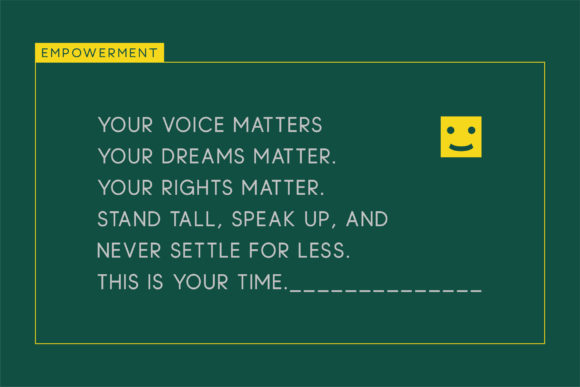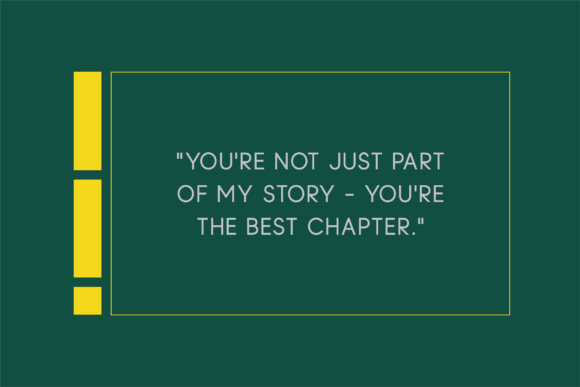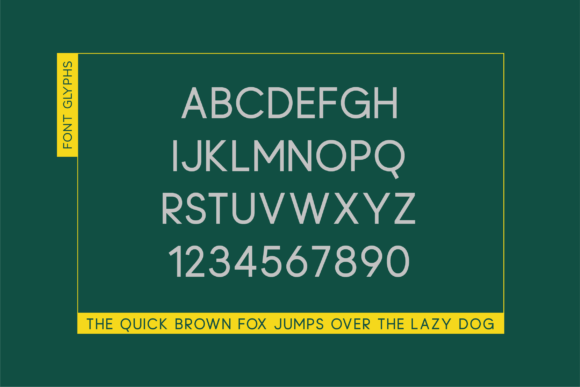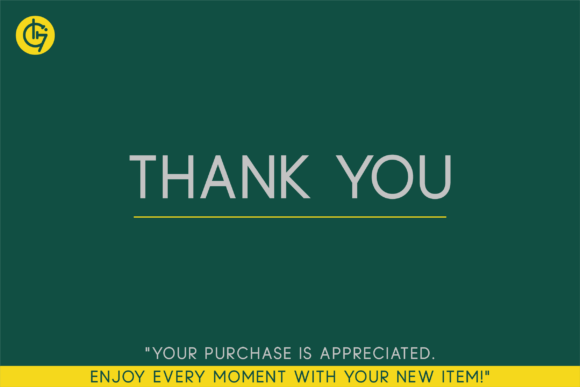
Introduction to Northwelth Font
Remember the moment when you finally nailed that creative project, and everything fell into place? The colors popped, the typography was on point, and the message resonated with your audience. It’s those moments that make all the hard work worth it. For designers, having the right tools and resources can make all the difference. That’s where Northwelth Font comes in – a modern sans serif typeface designed to elevate your design game.
With its clean lines, minimalist aesthetic, and all-caps design, Northwelth Font exudes strength and authority. It’s the perfect addition to your design arsenal, ideal for branding, logos, packaging, and digital design. Whether you’re working on a high-end project or a small-scale creative endeavor, Northwelth Font is sure to make a statement. And the best part? It’s available for free download, with a transparent background, making it a valuable resource for designers of all levels.
So, what sets Northwelth Font apart from the rest? Its modern, minimalist style, combined with a focus on readability, makes it an excellent choice for designers seeking a high-quality design resource. With its versatility and confidence-inspiring look, Northwelth Font is sure to become a go-to font for your next creative project.
Key Features of Northwelth Font
- High-quality design resource suitable for various creative projects, including digital art and graphic design.
- Features a transparent background, allowing for seamless integration into complex design compositions.
- Designed to be highly versatile, with a unique blend of modern and vintage elements that can be used in a wide range of applications.
- Resolution: Optimized for high-resolution displays, ensuring crisp and clear text rendering.
- Perfect for designers looking for a distinctive and eye-catching font to elevate their creative projects.
Honest Review: Northwelth Font
I recently stumbled upon the Northwelth Font, and I’m excited to share my thoughts on this design resource.
As a designer, I’m always on the lookout for high-quality fonts that can elevate my creative project. The Northwelth Font did not disappoint. Its clean and modern design makes it perfect for a variety of applications, from digital interfaces to print materials.
Here are some things that work well with the Northwelth Font:
- ✨ The font has a transparent background, making it easy to layer with other design elements.
- ✨ It’s highly customizable, with a wide range of font sizes and styles available.
- ⚠️ The font may not be suitable for projects that require a more traditional or serif font style.
- ⚠️ The font’s design can be a bit bold, so it may not be the best choice for projects that require a more subtle approach.
Overall, I’m impressed with the Northwelth Font. It’s a solid design resource that can add a touch of modernity to any creative project. While it may have some limitations, its benefits far outweigh its drawbacks.
The Northwelth Font is ideal for use in a variety of creative projects, including logos, business cards, brochures, and social media graphics. It’s also a great choice for use in presentations, documents, and websites.